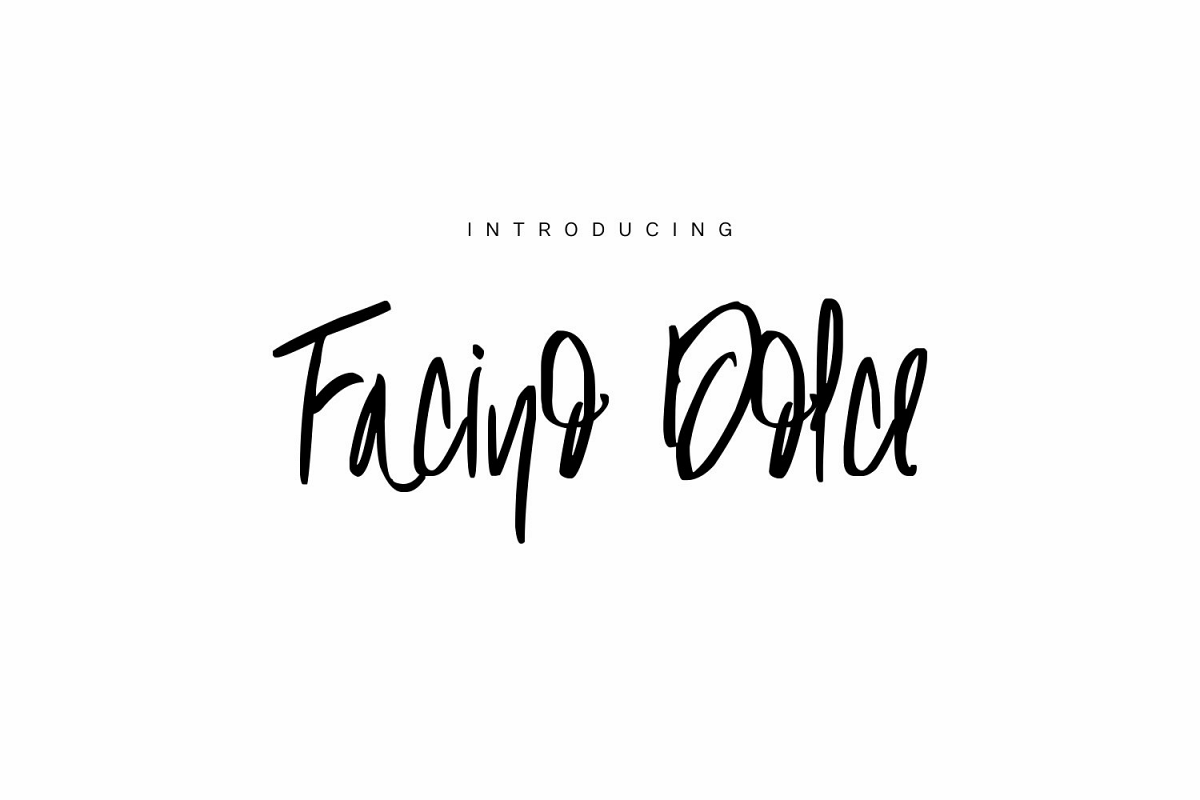
Facino Dolce
Facino Dolce - is a fountain with a sweet touch. Designed to attract the finest looks! Perfect for use in logos, invitations, business cards, website header etc ...